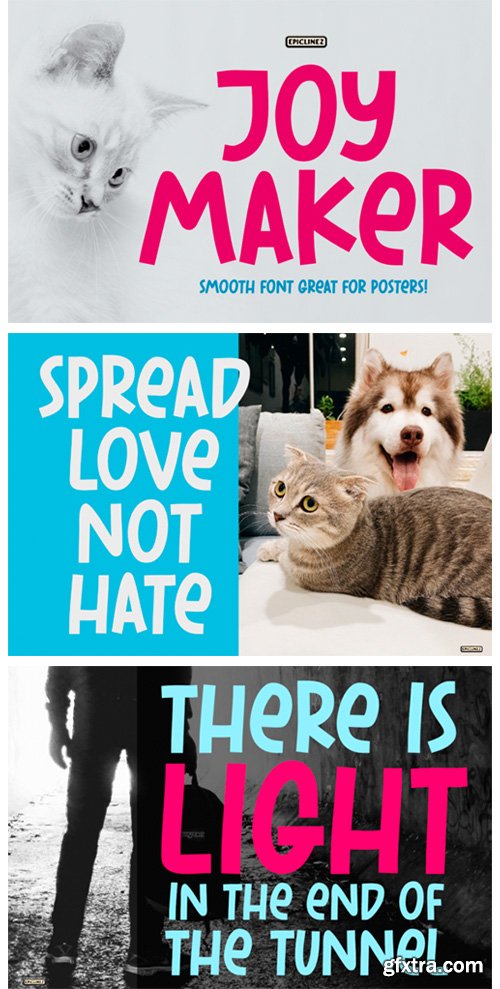
Joy Maker Font
Joy Maker is a fun and friendly display font. Whether you’re looking for fonts for Instagram or calligraphy scripts for DIY projects, Joy Maker will turn any creative idea into a true piece of art!